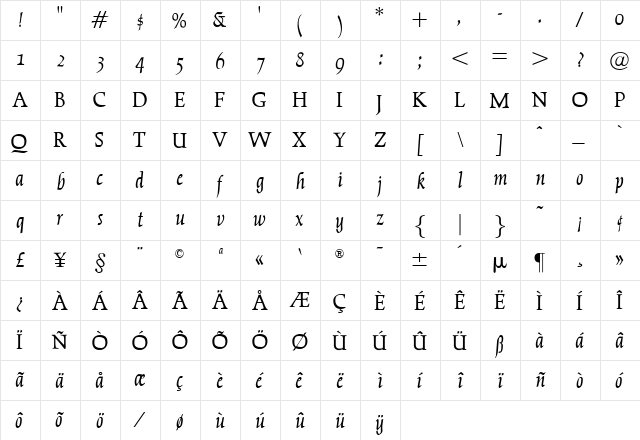
OPTICather Regular Font Preview
OPTICather Regular
OPTICather Regular Font Details
Design Context for OPTICather Typeface
OPTICather is a composed and adaptable typeface that performs quietly and consistently across a wide range of design contexts.